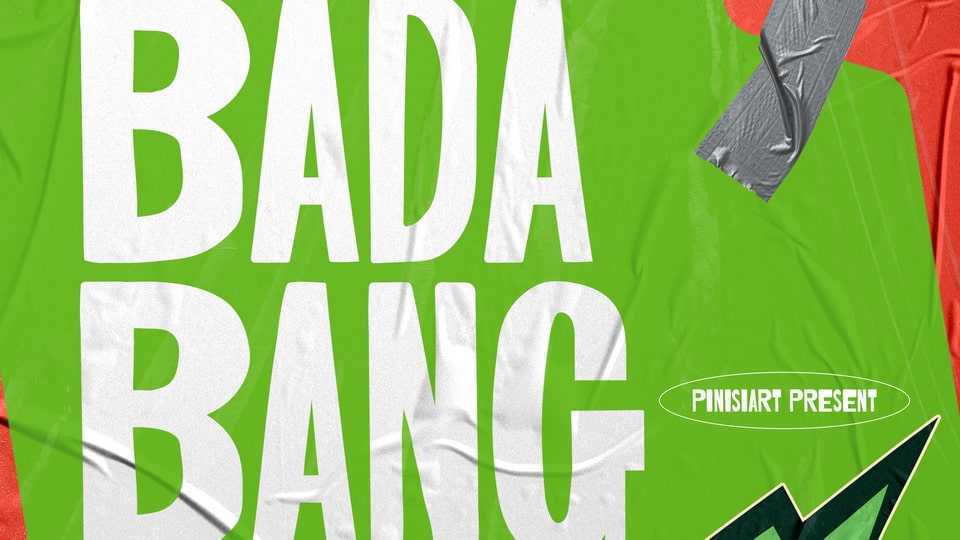
Download Bada Bang font, a cool display typeface. Shout out to everyone out there, this Bada Bang font, an all-caps style, will burst energy all over your project!